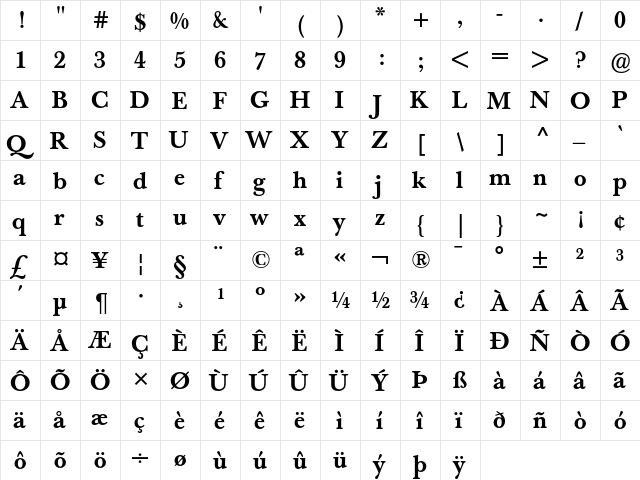
Berthold Baskerville Book Medium
Design Context for Berthold Baskerville Book Typeface
Berthold Baskerville Book takes a measured approach to typography — its balanced proportions and neutral character make it a reliable workhorse for both digital and print work.